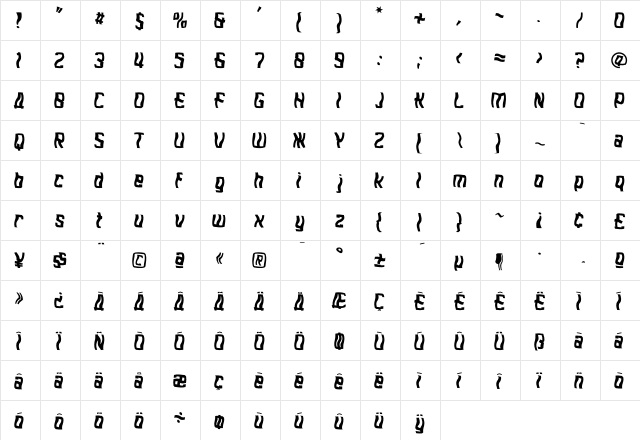
Aleksei Disturbed
Design Context for Aleksei Typeface
Aleksei is a composed and adaptable typeface that performs quietly and consistently across a wide range of design contexts.